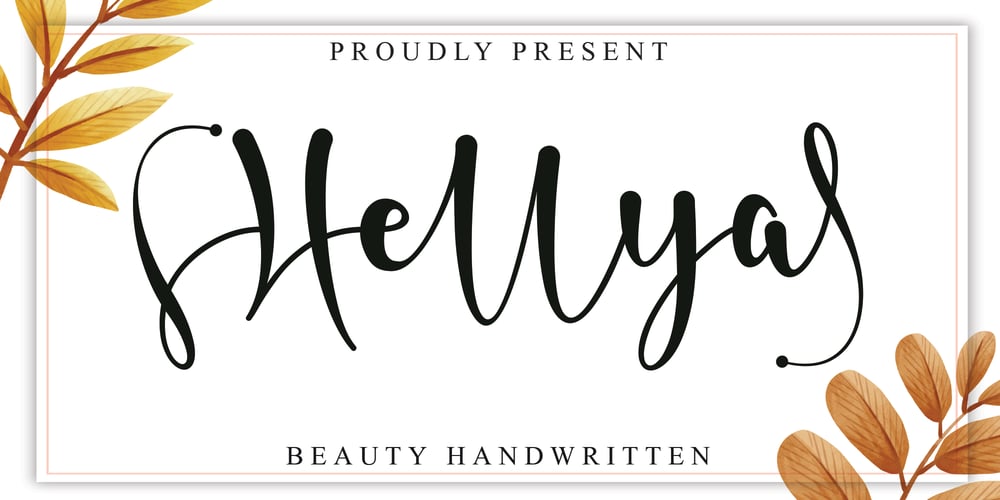
Hellya Font Family was designed by Harjuno Kristanto and published by Arkrist Letter. Hellya contains 1 styles and family package options. Hellya is an elegant script font with a contemporary atmosphere and impeccable form, inspired by timeless classic calligraphy. This font is PUA encoded which means you can access all glyphs and swashes with ease!